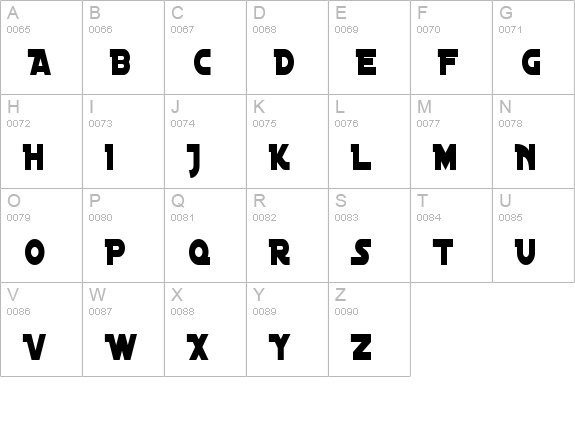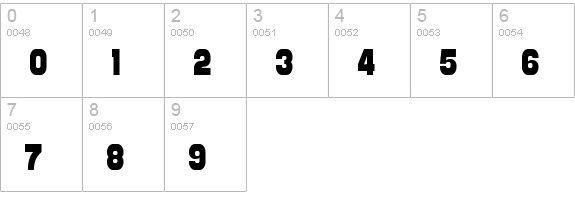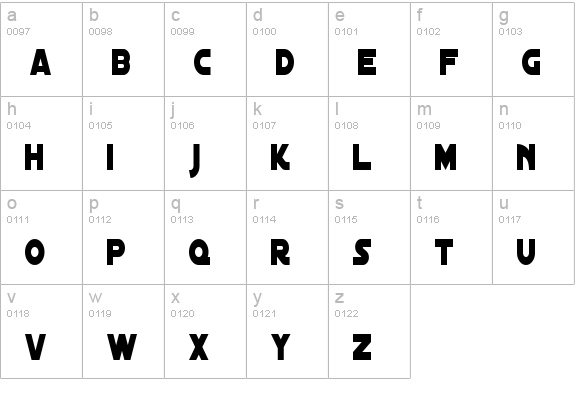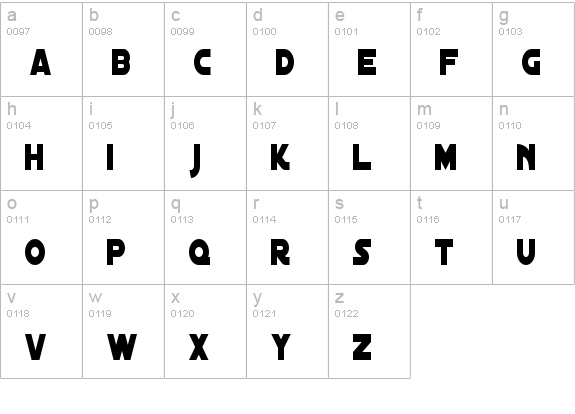
Distant Galaxy Condensed is a distinctive, condensed-width variant in the Distant typeface family \xE2\x80\x94 well suited to design and typography projects.
Distant Galaxy Condensed font is a sleek and futuristic typeface that will transport your designs to another dimension. Its condensed style adds a modern touch, making it perfect for sci-fi, technology, and space-themed projects. The sharp edges and clean lines of this font give a sense of precision and sophistication. What's even better is that Distant Galaxy Condensed font is completely free to use! You can download this incredible font at FontsMarket.com and take your designs to the next level without breaking the bank. Whether you're working on a poster, website, logo, or any other creative project, Distant Galaxy Condensed font will surely make a bold statement. Don't miss out on this opportunity to elevate your designs with this amazing free font!